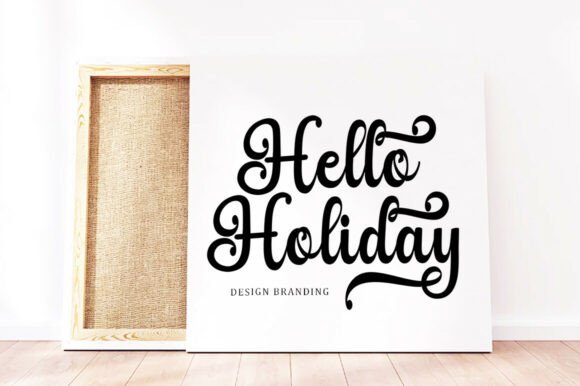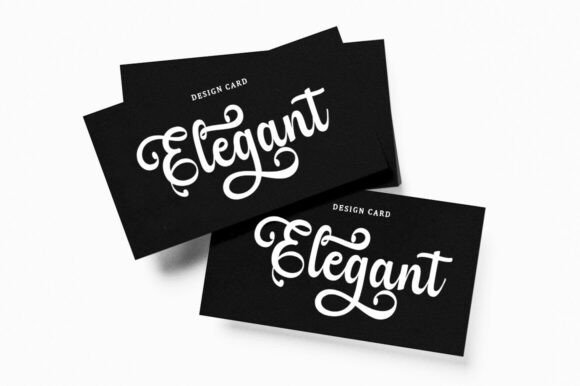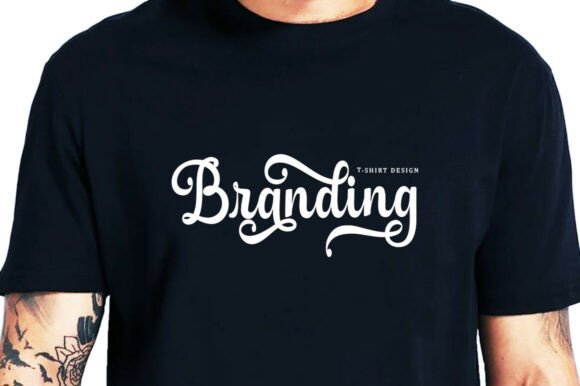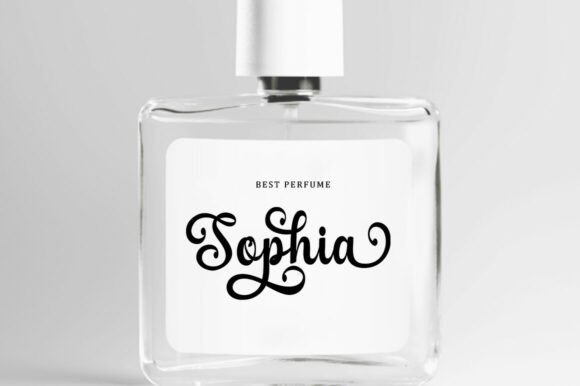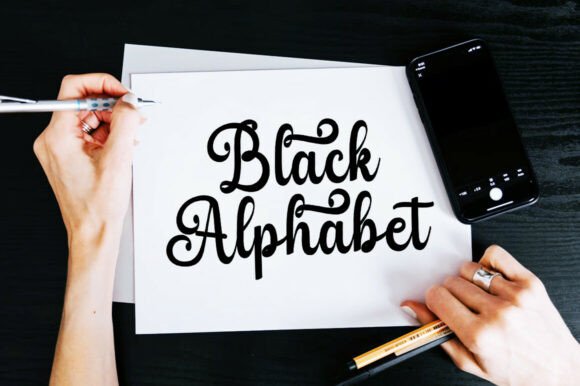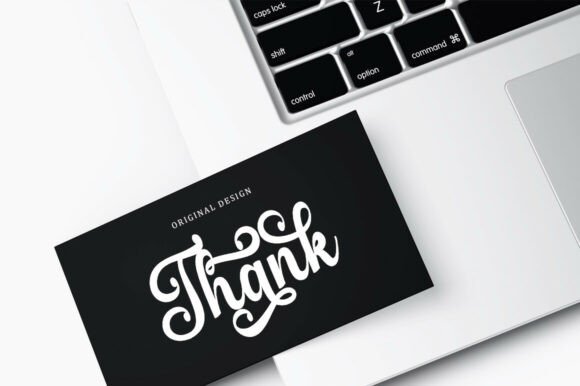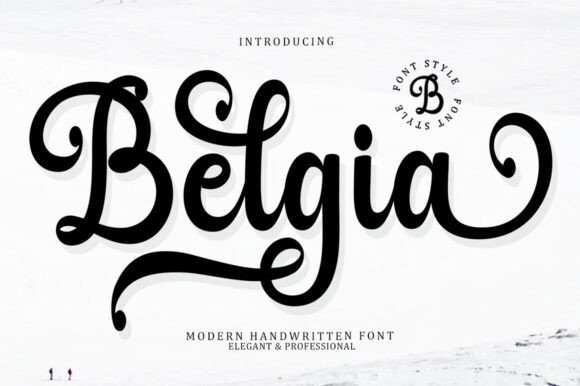
Introducing Belgia Font: The Perfect Blend of Casual Charm and High-End Polish
In the world of typography, finding the perfect font that embodies both casual charm and high-end polish can be a daunting task. However, look no further than Belgia, an elegant and professional handwritten font that is sure to elevate your brand to new heights. With its bold, fluid strokes and graceful loops, Belgia is the perfect choice for designers and crafters looking to add a touch of sophistication to their projects.
The Characteristics of Belgia Font
Belgia is a beautifully crafted handwritten font that features bold, fluid strokes characterized by graceful loops and a rhythmic, hand-inked flow. Its balanced visual weight and clean terminals provide a sophisticated aesthetic that is sure to impress. The font’s elegant and refined appearance makes it an extraordinary choice for luxury lifestyle branding, boutique product packaging, chic editorial headers, and personal signature logos.
The Benefits of Using Belgia Font
So, what sets Belgia apart from other fonts? Here are just a few benefits of using this exceptional typeface:
- Elegant and Refined Appearance: Belgia’s sophisticated aesthetic makes it perfect for high-end branding and design projects.
- Handcrafted Artisanal Prestige: With Belgia, you can add a touch of handcrafted artisanal prestige to every word, giving your brand a unique and exclusive feel.
- Approachable yet Legendary Personality: Belgia delivers a sense of approachability and sophistication, making it perfect for brands looking to convey a sense of luxury and refinement.
- Versatile: Whether you’re working on a luxury lifestyle brand, boutique product packaging, or chic editorial headers, Belgia is the perfect choice.
Using Belgia Font in Your Design Projects
So, how can you incorporate Belgia into your design projects? Here are a few ideas to get you started:
- Luxury Lifestyle Branding: Use Belgia to create elegant and sophisticated brand identities that exude refinement and luxury.
- Boutique Product Packaging: Add a touch of high-end polish to your product packaging with Belgia, perfect for boutique brands looking to stand out.
- Chic Editorial Headers: Use Belgia to create eye-catching editorial headers that add a touch of elegance and sophistication to your publications.
- Personal Signature Logos: Create a unique and exclusive personal signature logo with Belgia, perfect for entrepreneurs and small business owners.
Tips for Getting the Most Out of Belgia Font
To get the most out of Belgia, here are a few tips to keep in mind:
- Experiment with Font Sizes: Belgia looks great in a variety of font sizes, so don’t be afraid to experiment to find the perfect size for your project.
- Play with Color: Belgia’s elegant appearance is elevated by a range of colors, so try experimenting with different hues to find the perfect match for your brand.
- Pair with Other Fonts: Belgia pairs beautifully with other fonts, so try combining it with a sans-serif font for a striking contrast.
In conclusion, Belgia font is a game-changer for designers and crafters looking to add a touch of elegance and sophistication to their projects. With its bold, fluid strokes and graceful loops, Belgia is the perfect choice for luxury lifestyle branding, boutique product packaging, chic editorial headers, and personal signature logos. Whether you’re looking to create a high-end brand identity or add a touch of artisanal prestige to your design projects, Belgia is the perfect choice.